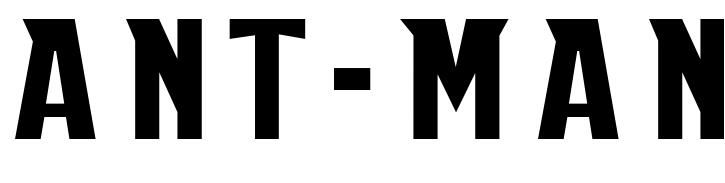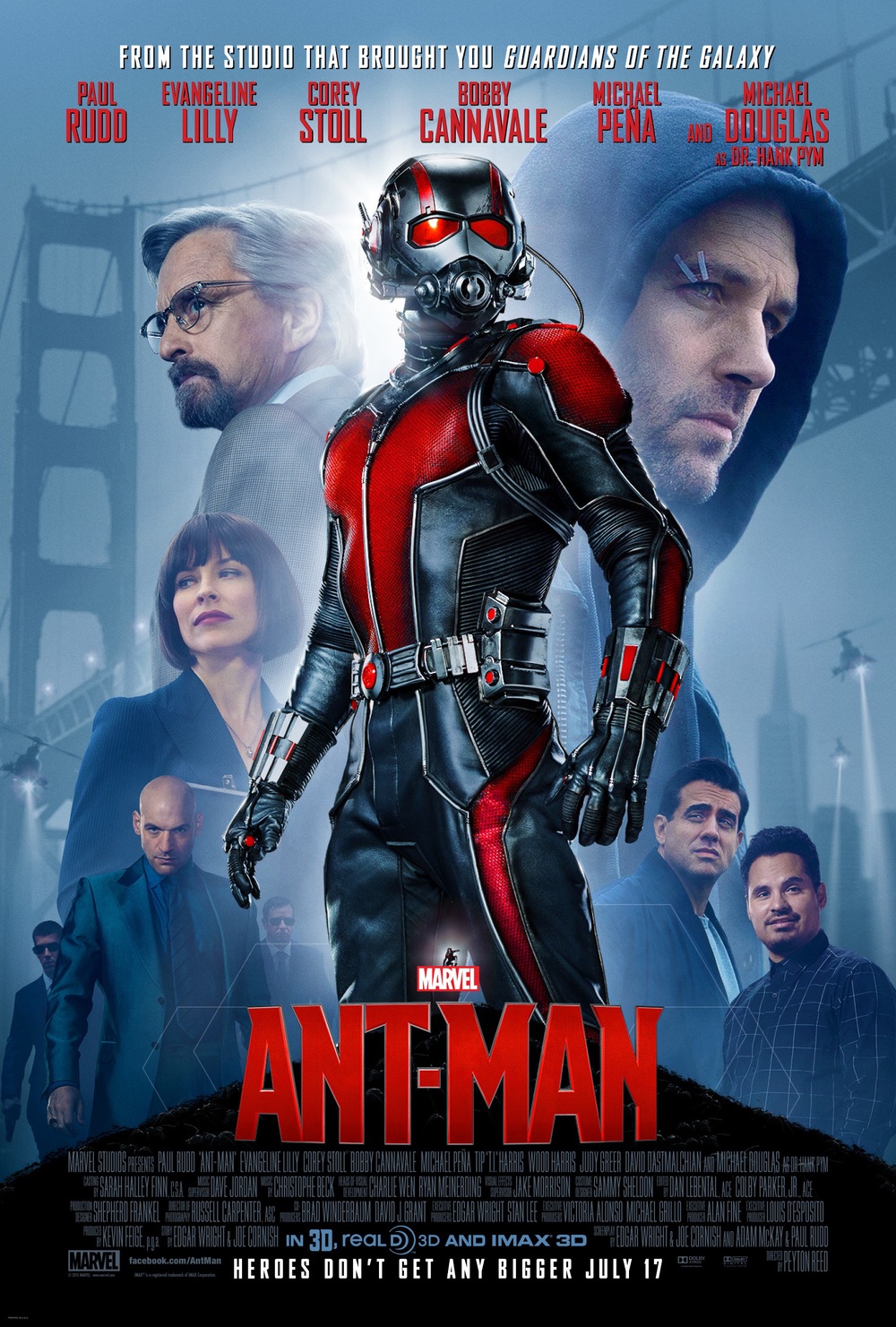
Ant-Man Font
The font used for the Ant-Man title in the poster is reminiscent of Eric Yang's Insideman, a gothic-style font. Only capital letters and a small number of punctuation marks are offered in the font. It is available for download in the Fonts Used Section.